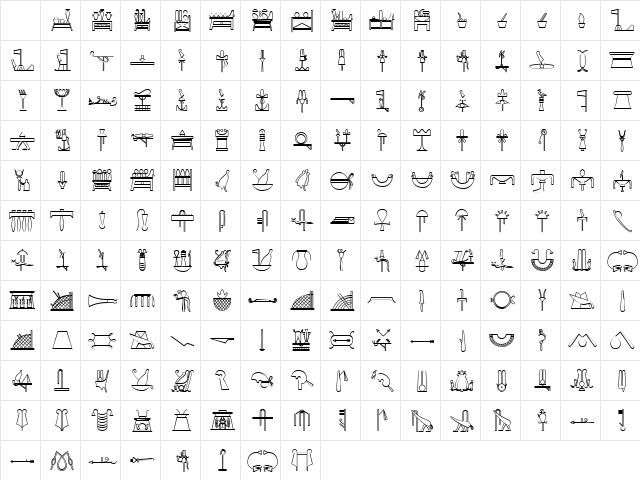
Complete GlyphExtLibAA Medium glyph index. Displaying only characters natively supported by GlyphExtLibAA Medium font.
GlyphExtLibAA is a composed and adaptable typeface that performs quietly and consistently across a wide range of design contexts.